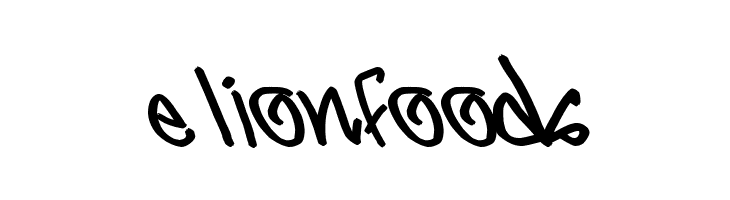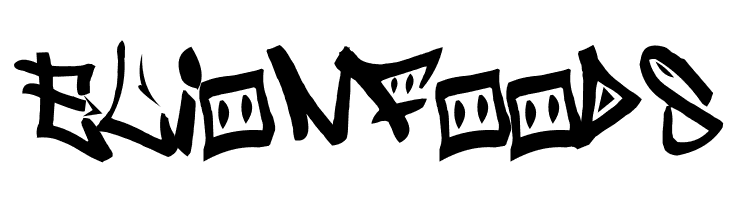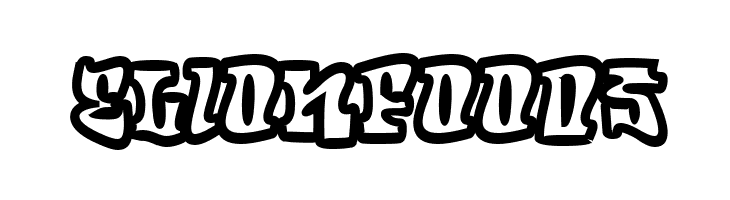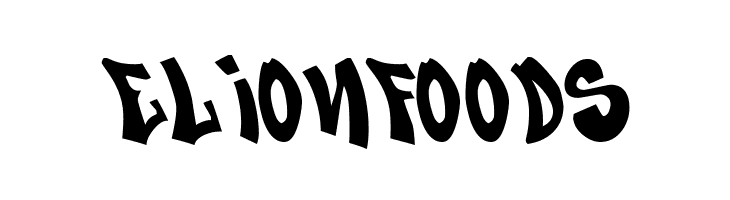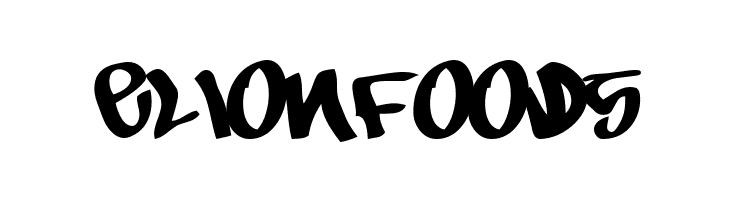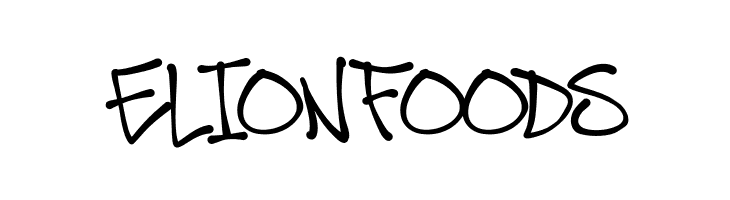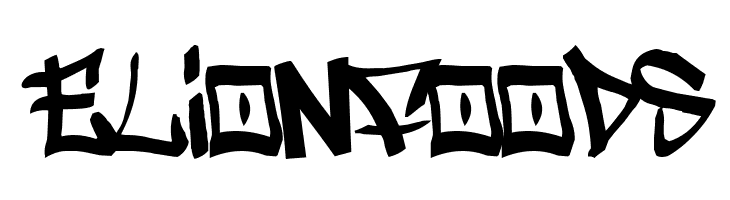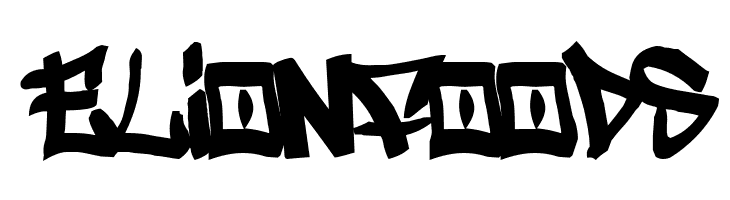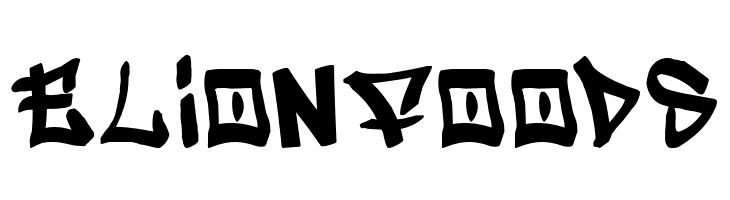
( Fonts by or from www.graffitifonts.net )
A bold, graffiti-inspired font with dynamic, sweeping strokes and artistic flair.
( Fonts by or from www.graffitifonts.net )
A bold, graffiti-inspired font with angular, stylized letterforms and an urban vibe.
( Fonts by or from www.graffitifonts.net )
A bold, graffiti-inspired font with thick outlines and dynamic curves.
( Fonts by The Scriptorium - Dave Nalle )
A bold, graffiti-inspired font with sharp, angular lines and dynamic curves.
( Fonts by Glyphobet Font Foundry - Matt Chisholm - http://glyphobet.net/typography/ )
A bold, graffiti-inspired font with dynamic curves and angles.
( Fonts by www.sweeep.fr - Damien Gosset )
A bold, graffiti-inspired font with a dynamic, hand-drawn style.
( Fonts by or from www.graffitifonts.net )
A bold, graffiti-inspired font with sharp, angular lines and dynamic strokes.
( Fonts by or from www.graffitifonts.net )
A bold, graffiti-inspired font with dynamic and angular strokes.
( Fonts by or from www.graffitifonts.net )
A bold, graffiti-inspired font with dynamic and angular letterforms.